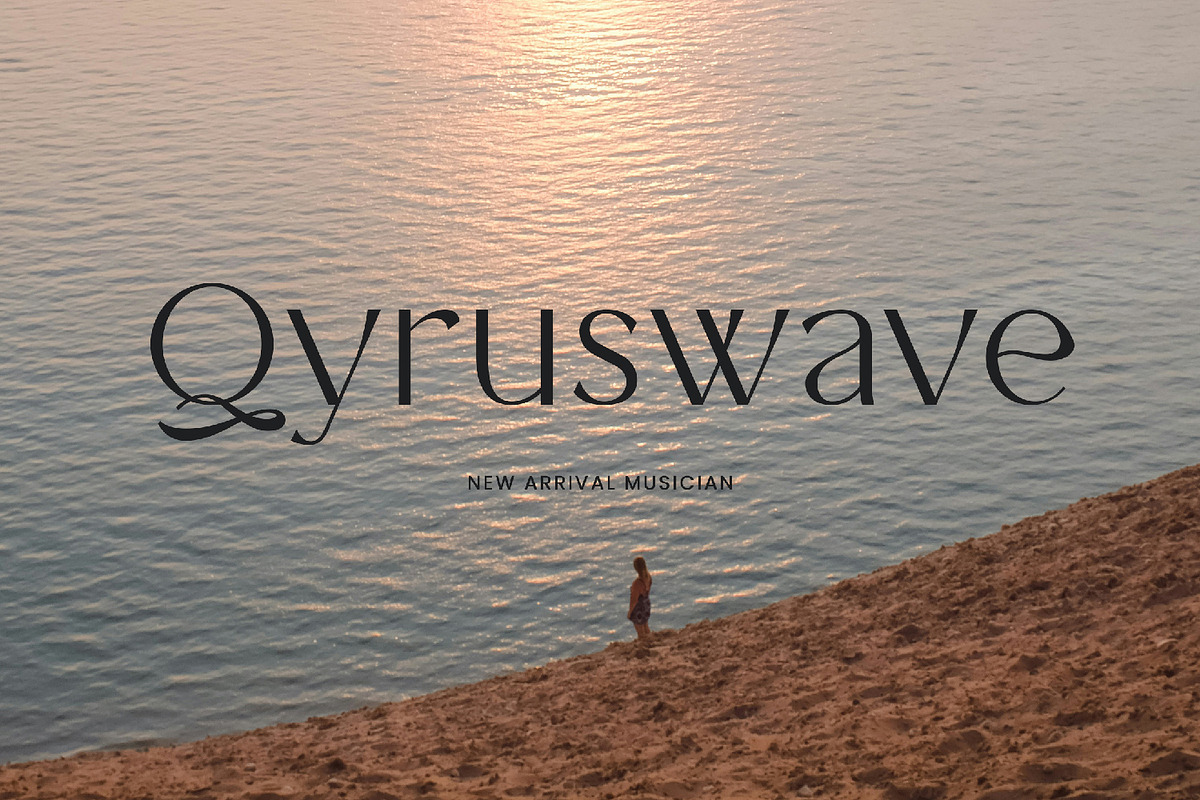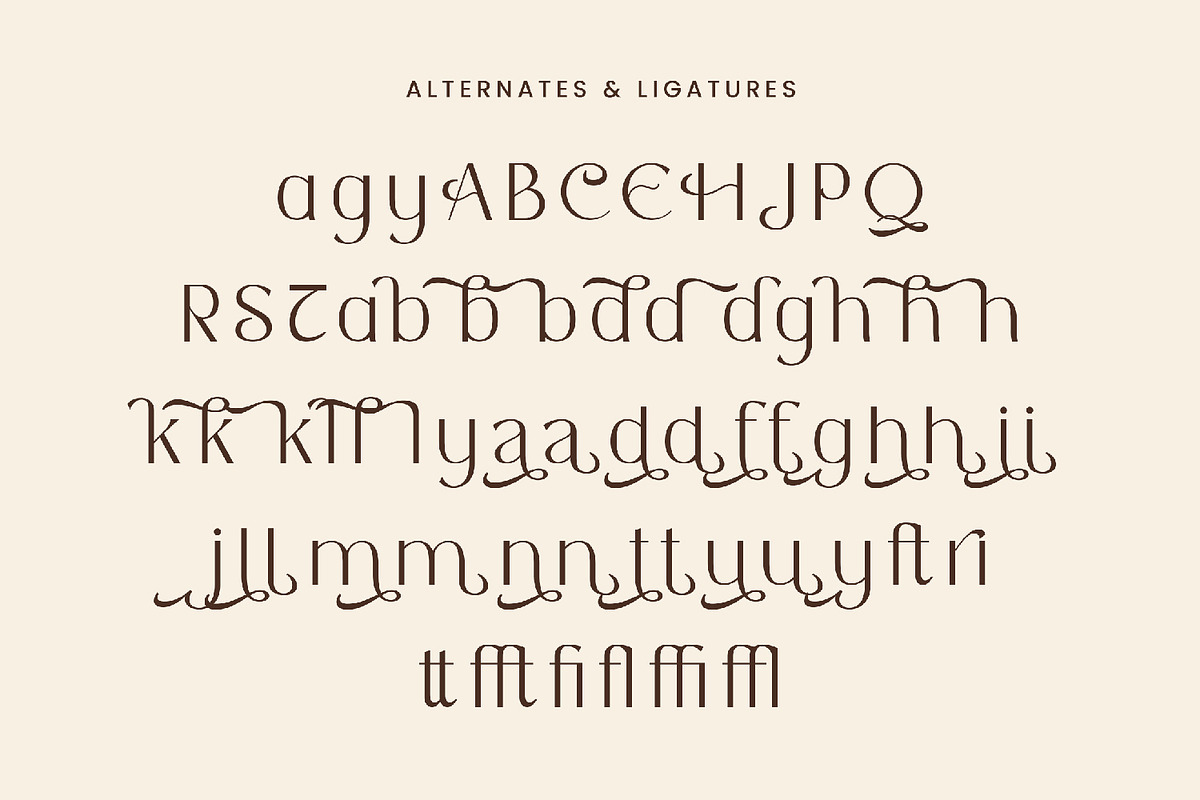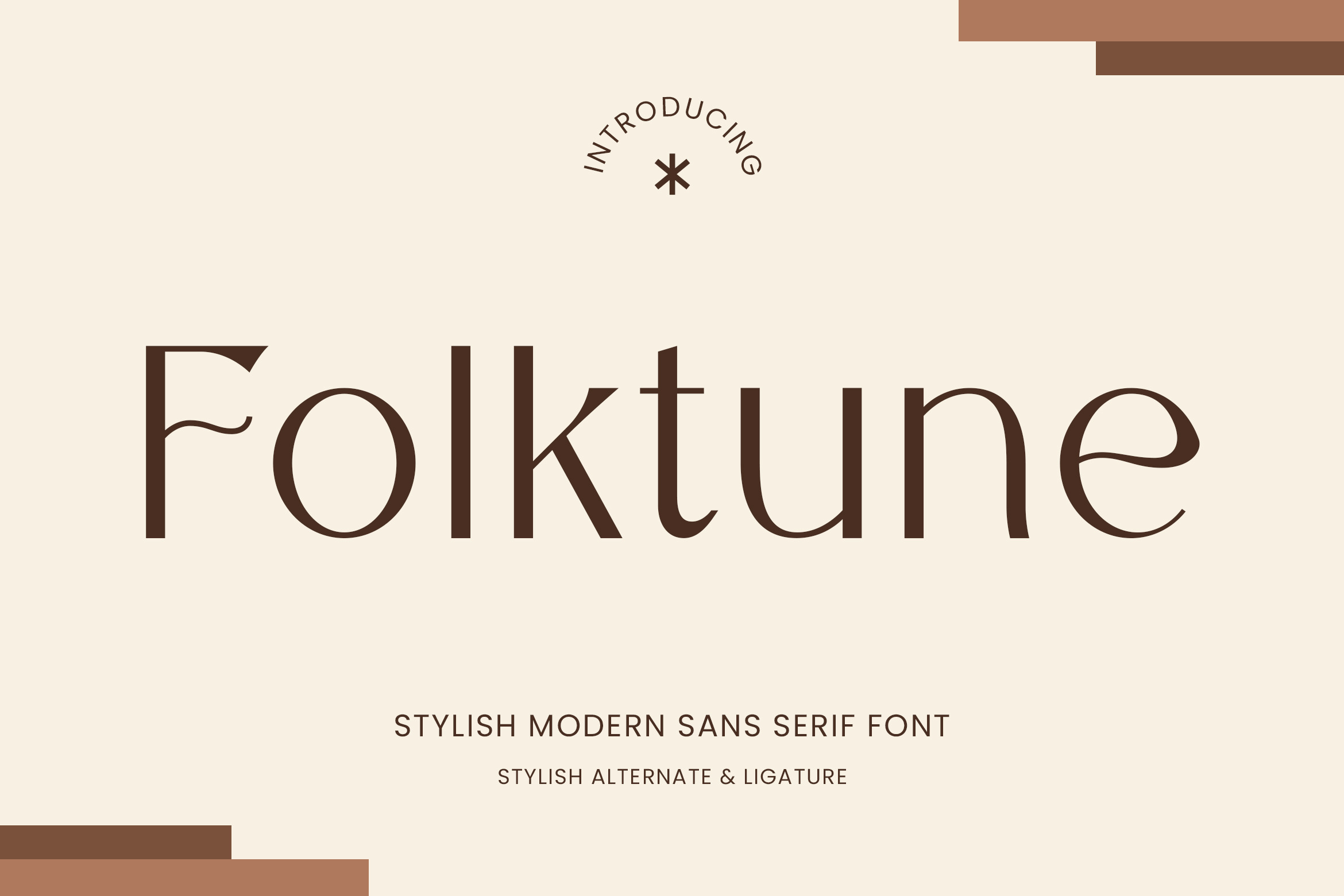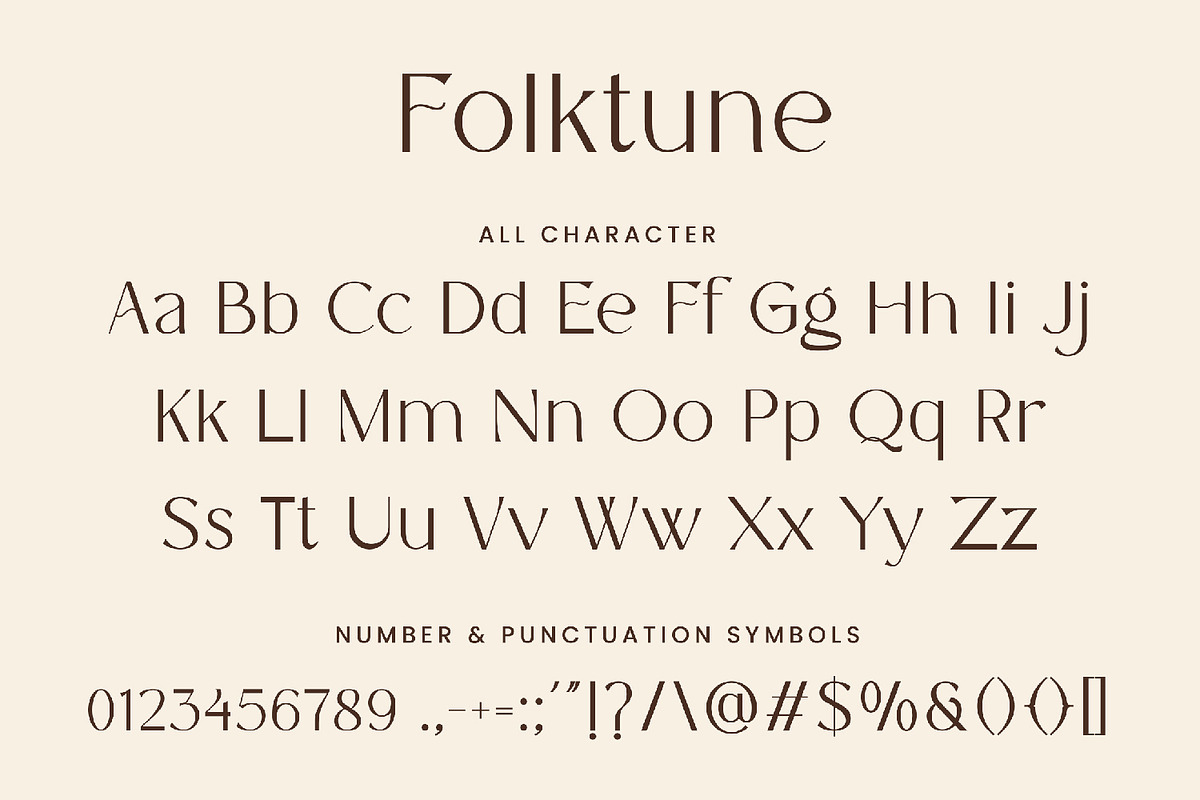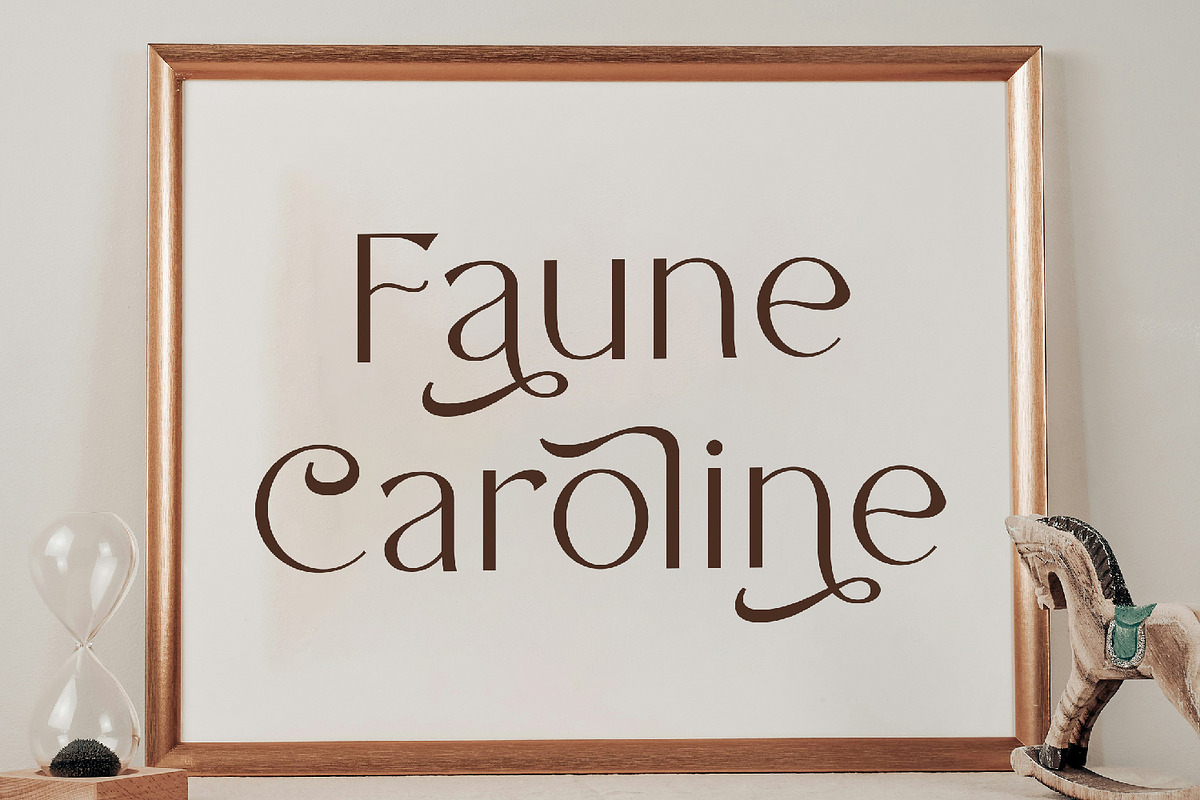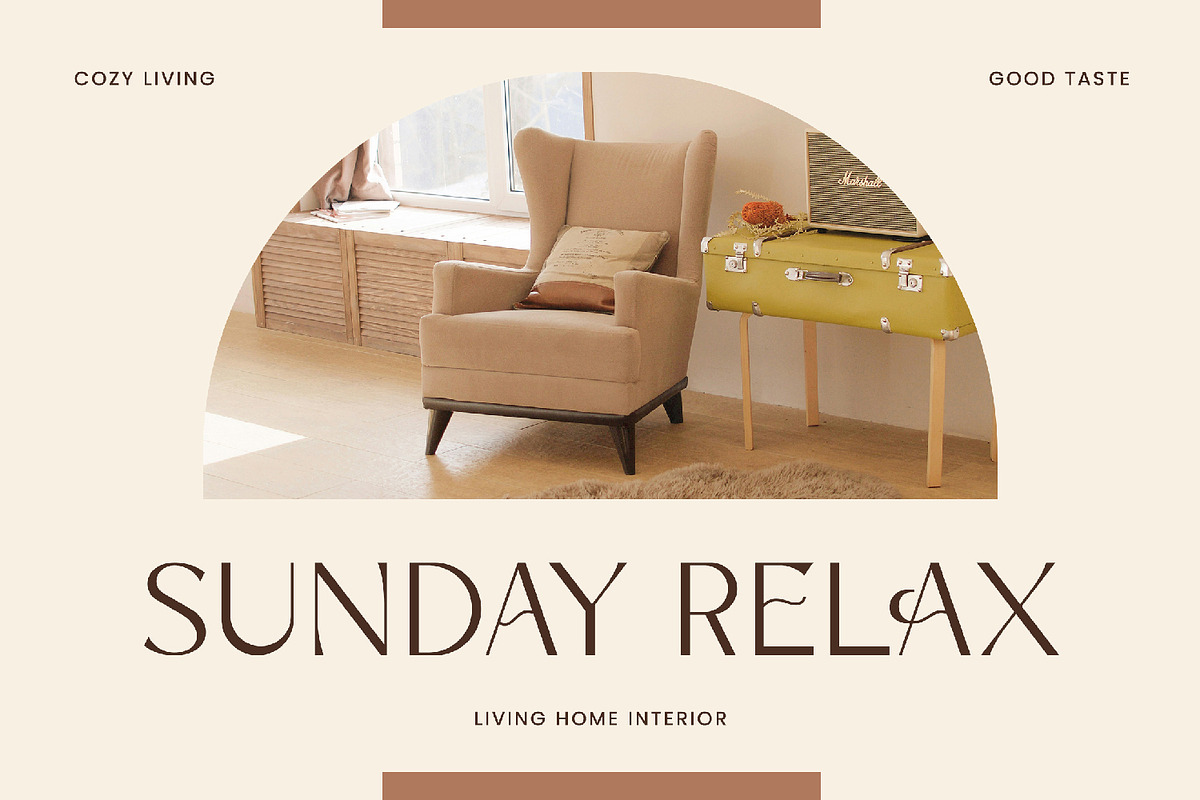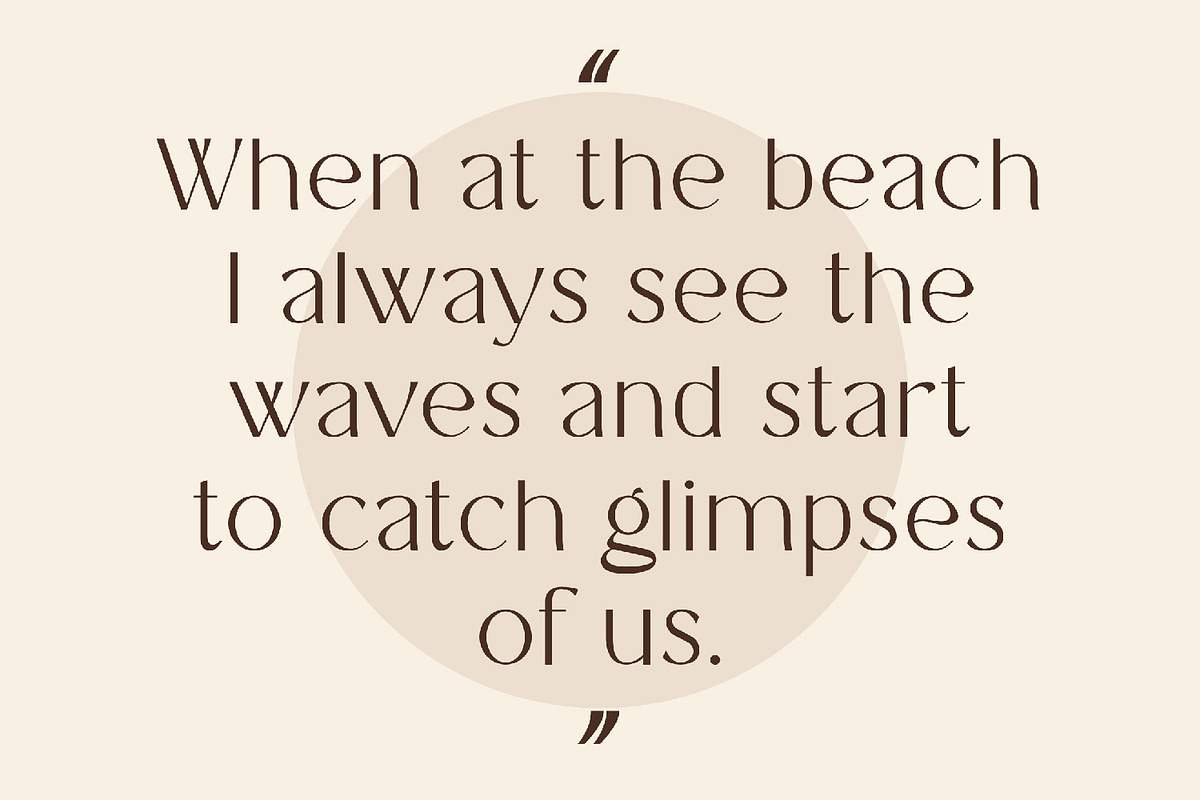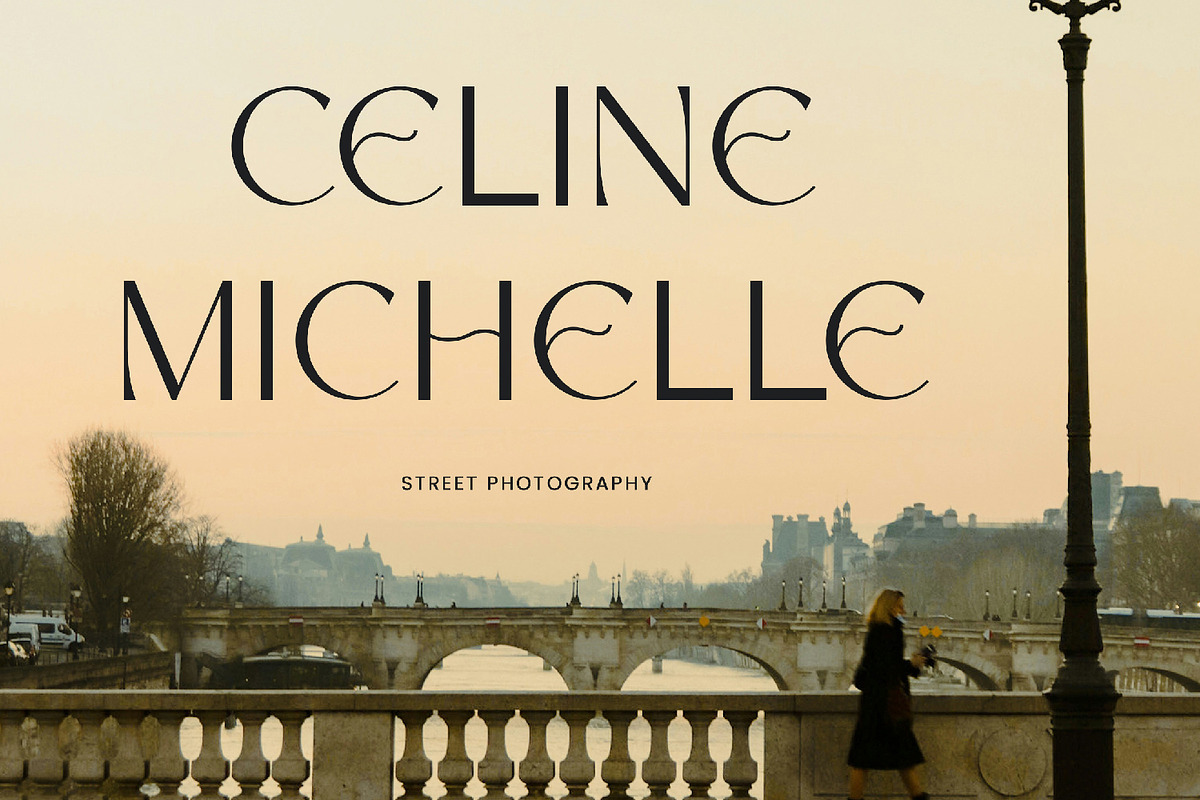
Folktune - Stylish Sans Serif Font
Folktune - Stylish Sans Serif Font contains a lowercase, uppercase, symbol, and also supports multi-language. There’s a lot of ligature in this font. Folktune - Stylish Sans Serif Font also comes with ligatures, stylistic alternates and many more. this font suitable for fashion, branding, catalog and other design that you want.